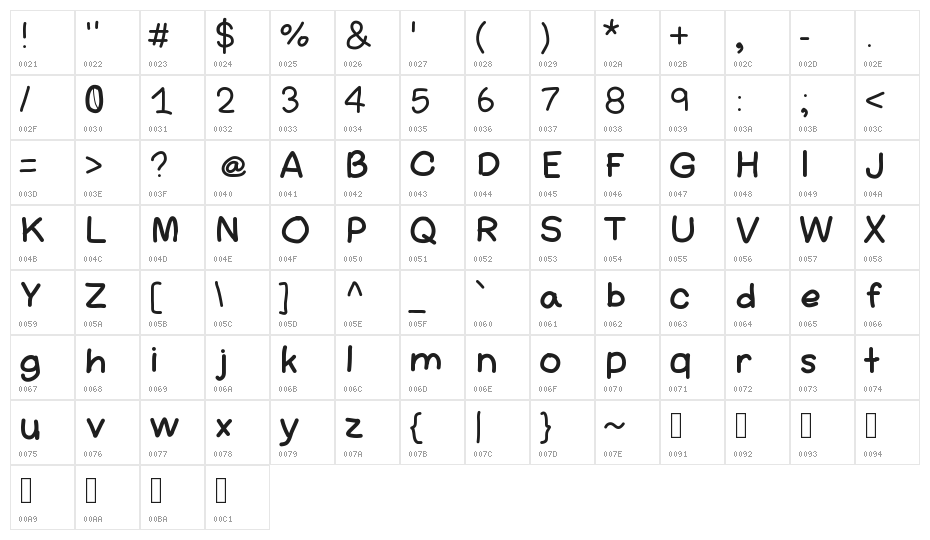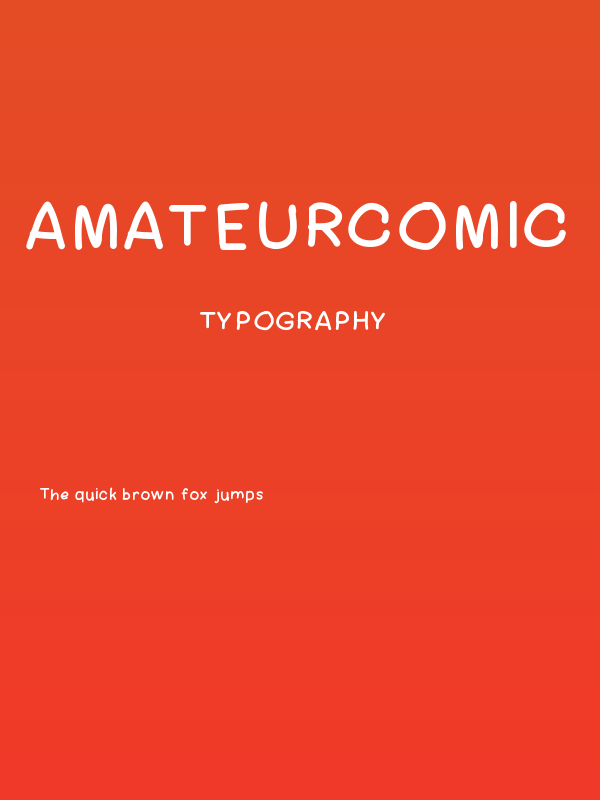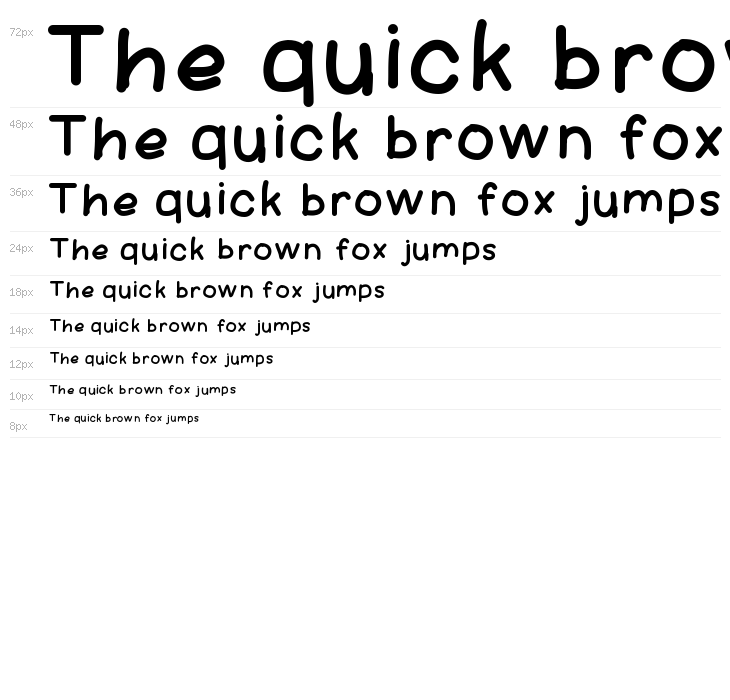
AmateurComic Font
AmateurComic Description
This playful and informal font features rounded, hand-drawn characters that convey a sense of whimsy and casualness. The letters are slightly irregular, mimicking a handwritten style that adds a personal touch to any text. The strokes are consistent in thickness, providing a uniform appearance while maintaining a relaxed and approachable feel. The font includes a full set of uppercase and lowercase letters, numerals, and a variety of special characters, making it versatile for different uses. Its friendly and light-hearted design is perfect for projects that aim to be engaging and accessible.
| Use Case | Headlines, Informal text, Branding |
| Proposed Projects | Ideal for children's books, comic strips, casual invitations, and playful branding. |